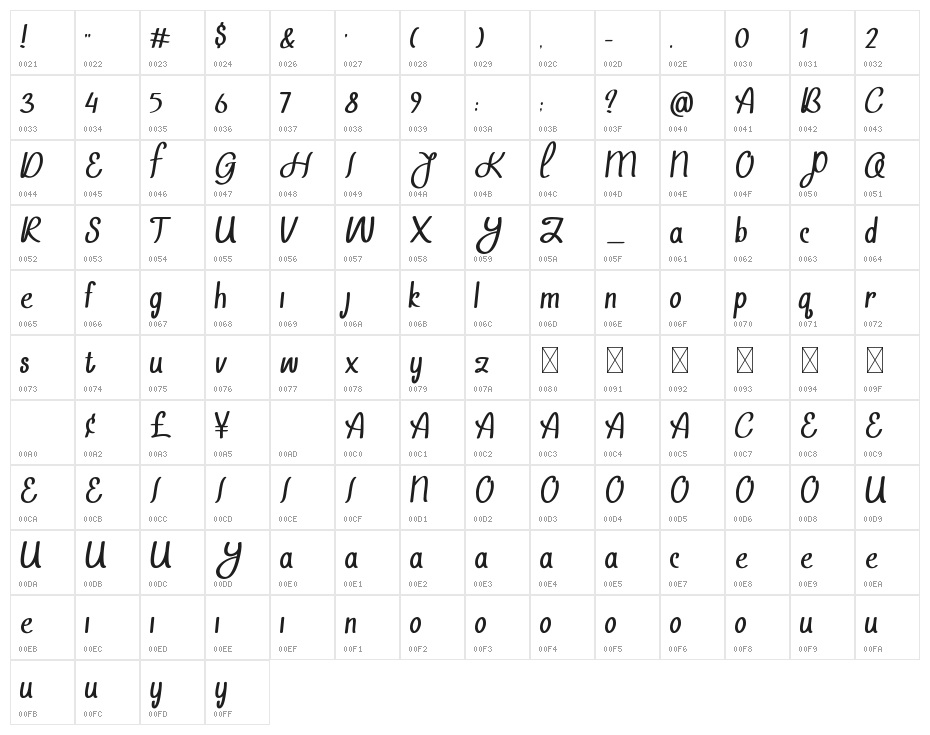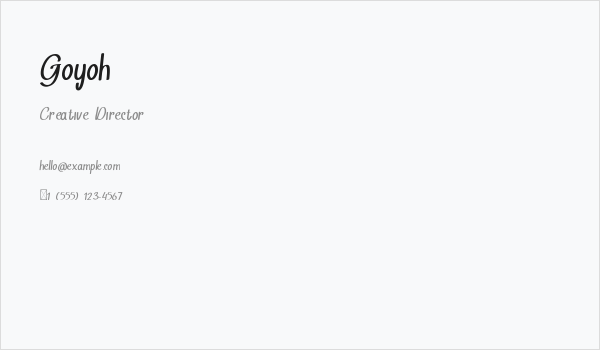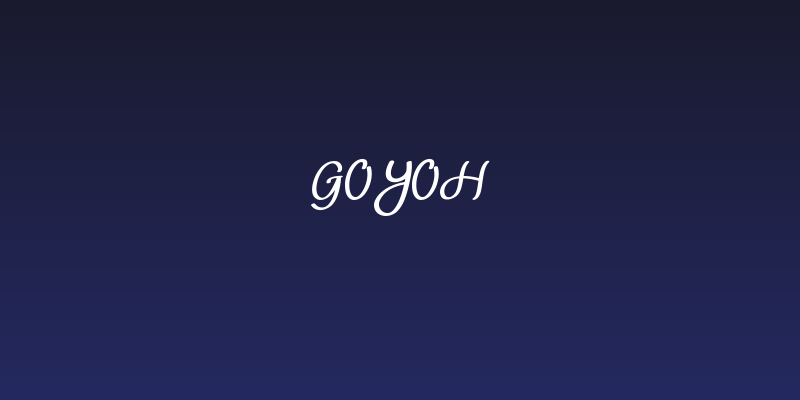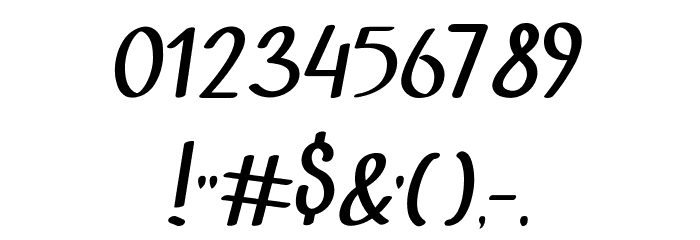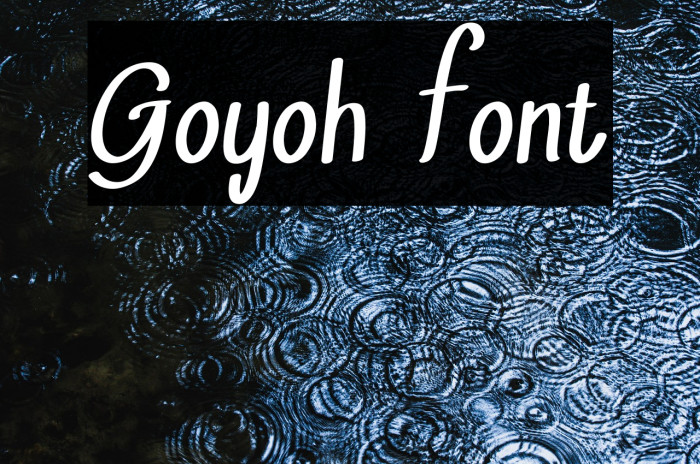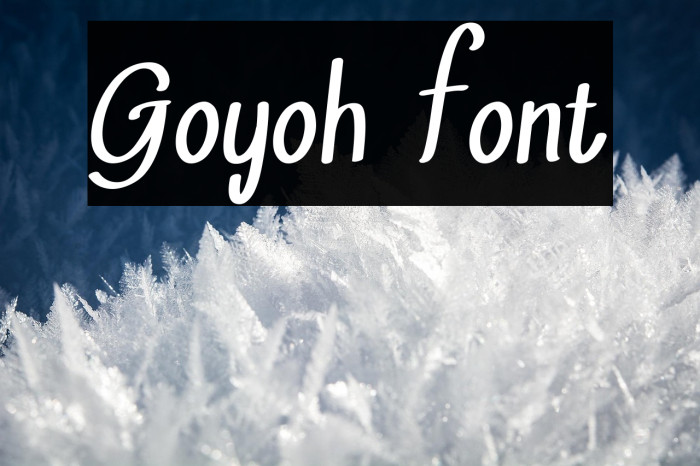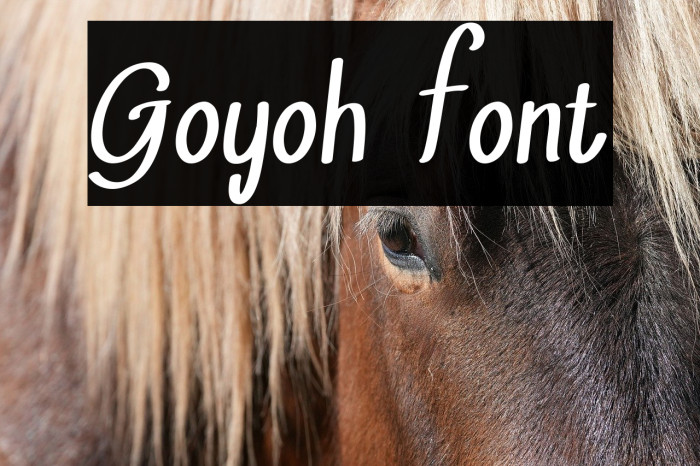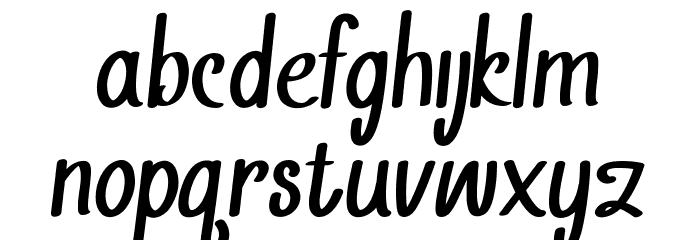
Goyoh Font
Goyoh Description
This font features a playful and flowing script style, characterized by its smooth, cursive strokes and a lively, informal appearance. The uppercase letters are elegantly looped, with a consistent slant that adds a sense of motion and fluidity. The lowercase letters maintain a harmonious balance, complementing the uppercase with their rounded forms and gentle curves. Numbers and special characters are designed to match the overall aesthetic, ensuring a cohesive look. This font's unique charm makes it suitable for creative and expressive design projects.
GOYOH UPPERCASE
GOYOH LOWERCASE
GOYOH OTHER CHARS